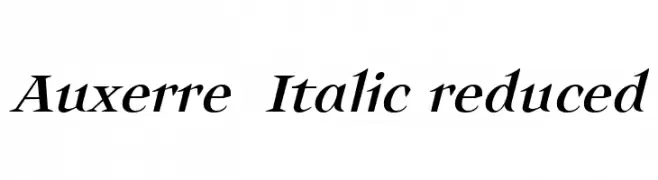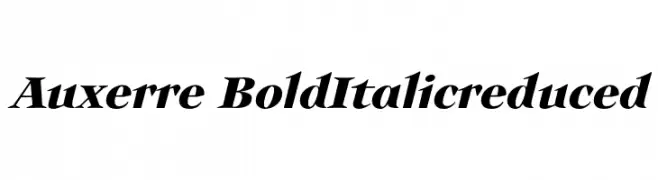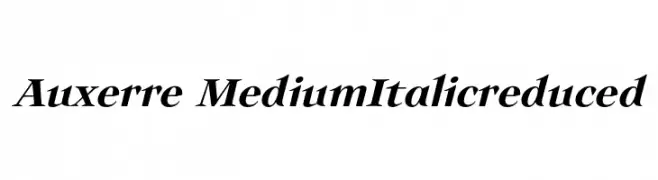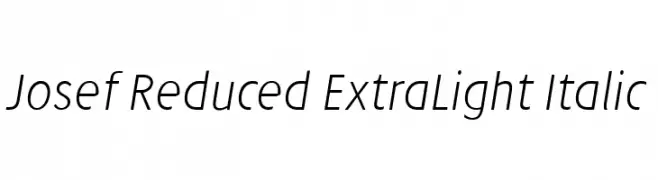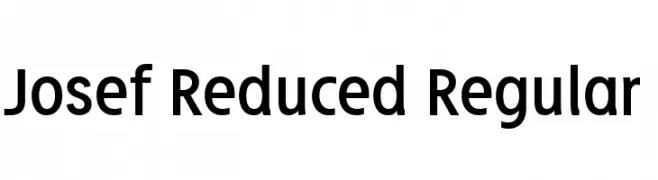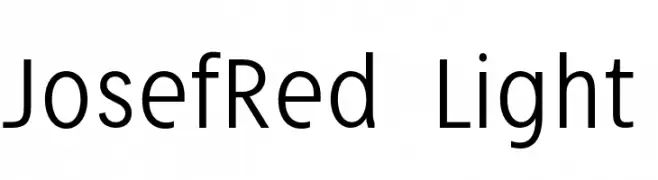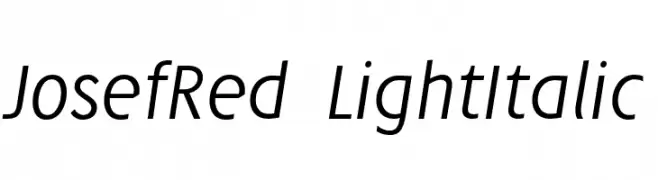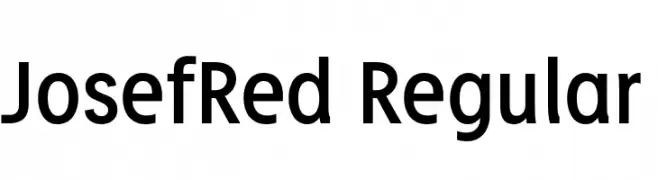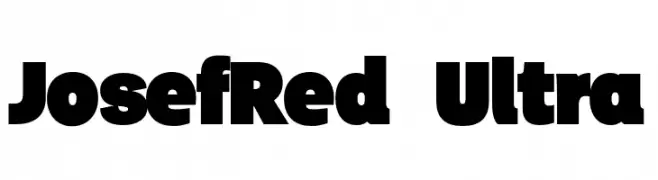
A classic italic serif font with elegant, flowing lines and moderate contrast.
A classic serif font with an elegant italic slant and moderate contrast.
A bold, italic serif font with a dynamic and sophisticated style.
A modern, light, and slightly italic sans-serif font with medium contrast.
A bold, modern font with thick strokes and tight spacing, perfect for impactful headlines.
A modern, geometric sans-serif typeface with uniform stroke width and excellent readability.
A bold, geometric font with uniform stroke widths and a modern aesthetic.
A modern sans-serif font with geometric shapes and uniform strokes.
A modern, light sans-serif font with low contrast and rounded edges.
A sleek, extra-light italic sans-serif font with a modern and minimalist design.